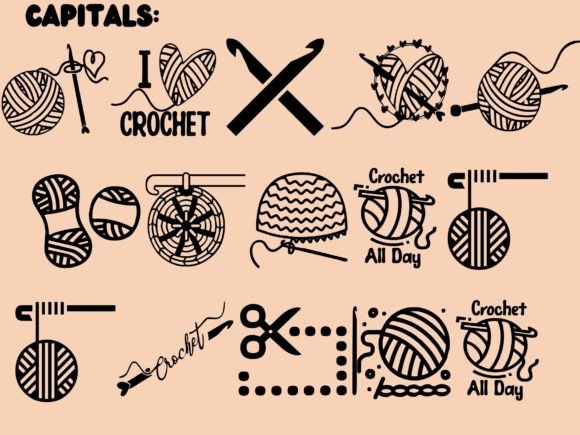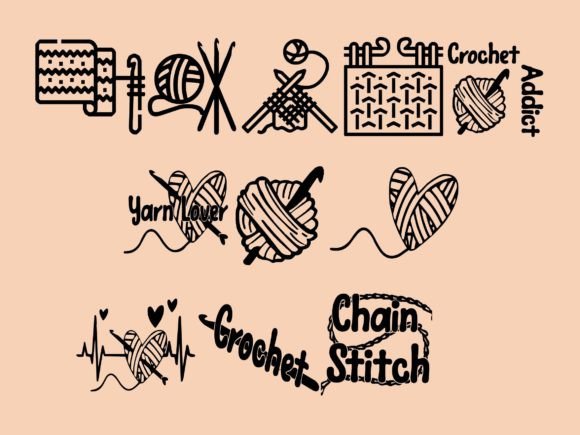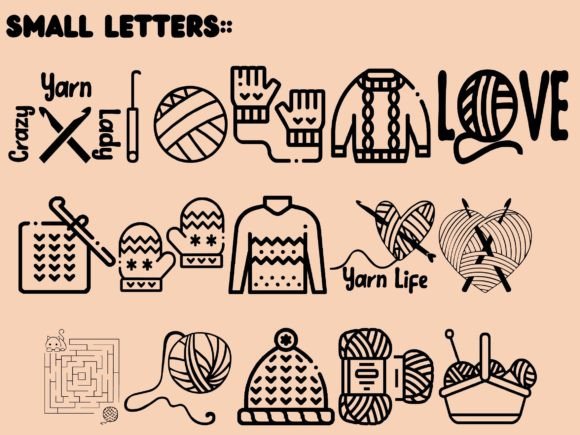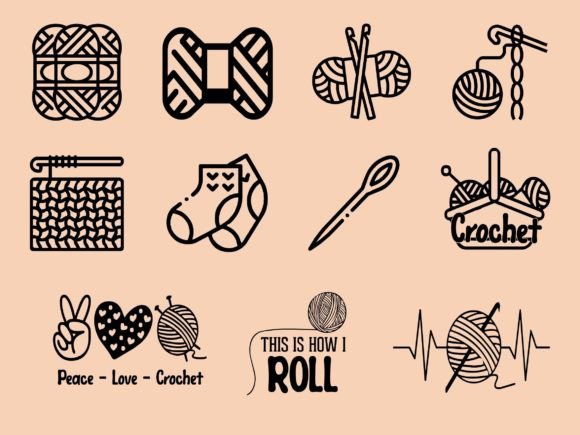
Crochet Font: The Ultimate Dingbats Font for Crochet Lovers
Crochet Font is a fun and useful dingbats font that is a must-have for anyone who loves crochet. This fantastic asset is perfect for designers, crafters, and crochet enthusiasts who want to add a personal touch to their projects. With Crochet Font, you can create beautiful and unique designs that showcase your love for crochet.
What is Crochet Font?
Crochet Font is a dingbats font that features a collection of crochet-related symbols, icons, and illustrations. The font includes a wide range of characters, from basic crochet stitches to complex patterns and motifs. Each character is carefully designed to be visually appealing and easy to read, making it perfect for use in a variety of projects.
Features of Crochet Font
Crochet Font has several features that make it a valuable asset for designers and crafters. Some of the key features include:
- Unique and exclusive designs: The font features a wide range of unique and exclusive designs that are not found in other fonts.
- Easily readable: The characters in Crochet Font are designed to be easily readable, making it perfect for use in a variety of projects.
- Scalable: The font is scalable, which means that it can be used in a variety of projects, from small crafts to large-scale designs.
Uses of Crochet Font
Crochet Font can be used in a variety of projects, including:
- Crochet patterns: Use Crochet Font to create beautiful and unique crochet patterns that showcase your designs.
- Crafting projects: Add a personal touch to your crafting projects, such as knitting, sewing, and embroidery.
- Graphic designs: Use Crochet Font to create unique and eye-catching graphic designs, such as logos, icons, and illustrations.
- Web design: Use Crochet Font to add a personal touch to your website or blog.
Benefits of Using Crochet Font
There are several benefits to using Crochet Font, including:
- Time-saving: With Crochet Font, you can save time by using pre-designed characters and illustrations.
- Unique designs: Create unique and exclusive designs that showcase your love for crochet.
- Easily customizable: The font is easily customizable, which means that you can adjust the size, color, and style to suit your needs.
Crochet Font is a fantastic asset for anyone who loves crochet. With its unique and exclusive designs, easily readable characters, and scalability, it’s perfect for use in a variety of projects. Whether you’re a designer, crafter, or crochet enthusiast, Crochet Font is a must-have for your font collection. So add it now and get crafty!
Crochet is a fun and useful dingbats font. For crochet lovers, this is a fantastic asset. So add it now to your font collection and get crafty!